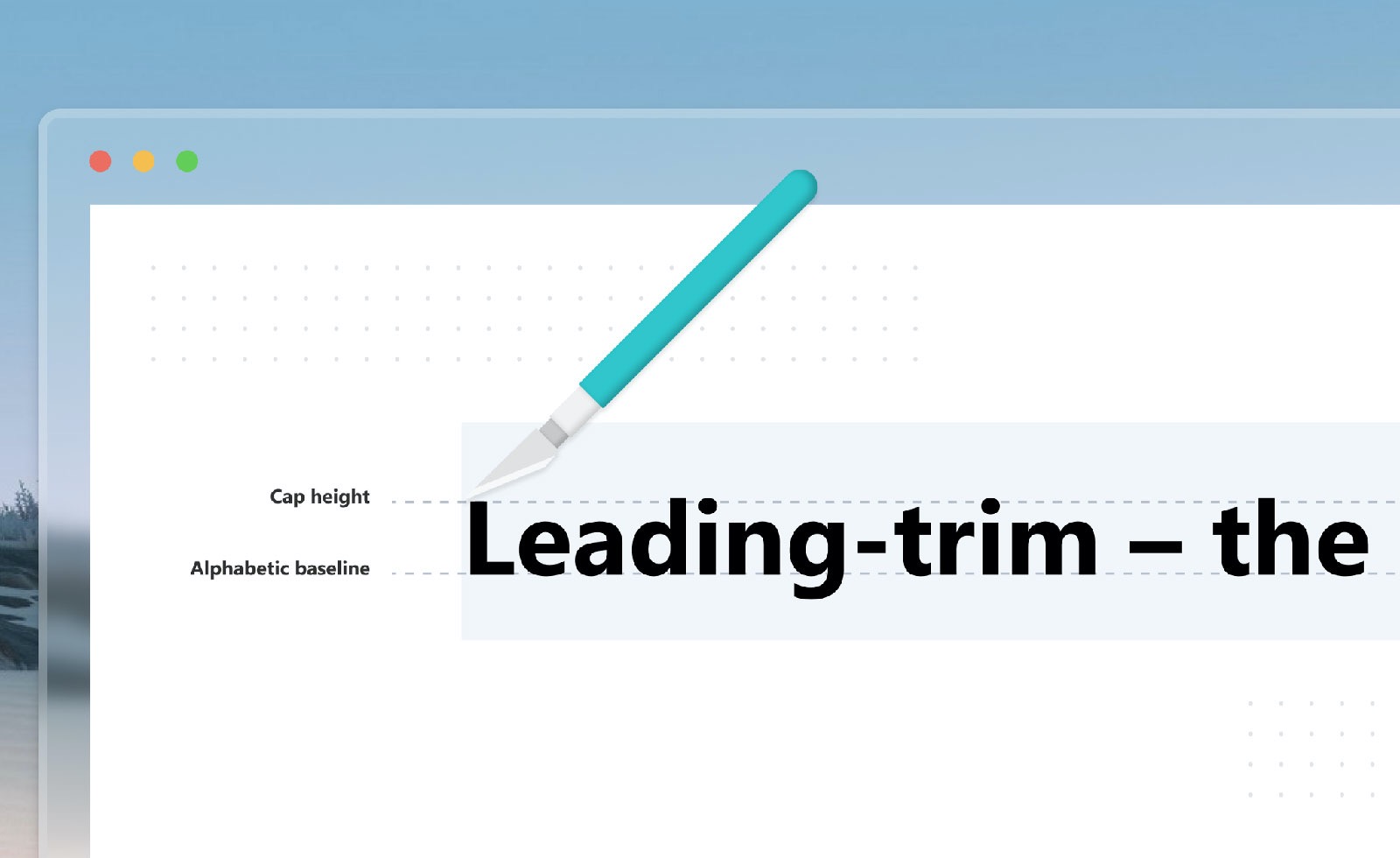
The exact definition varies.
Colous is one of the best free fonts around for headlines image credit. Serif fonts include a small stroke known as a serif at the end of the lines in most letters. It has a classical almost noble appearance and is great for creating imposing headlines adding a touch of class to logos and introducing sophistication to poster designs. Stan partalev on font fabric colus is a free display font inspired by stone and wooden carved letter inscriptions.
Its a typically heavy bold font that stands out against a variety of backgrounds. Ascenders are the opposite letters with taller features such as the letter h. Bulky sans serif fonts like this are some of the best fonts for logos that intend to make an instant impression. The thickness of the strip is called leading and is equal to the difference between the size of the type and the distance from one baseline to the next.
Because of this serif fonts are popular fonts for long blocks of text like books newspapers and magazine articles. Serif fonts have a classic look to them and the serifs are also known to aid in the readability of text.